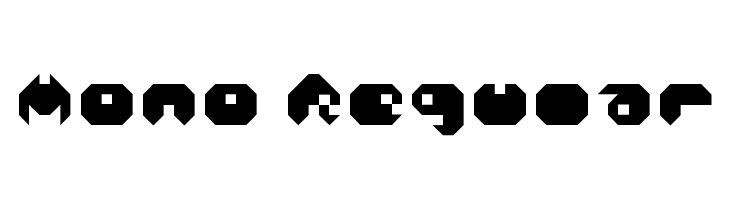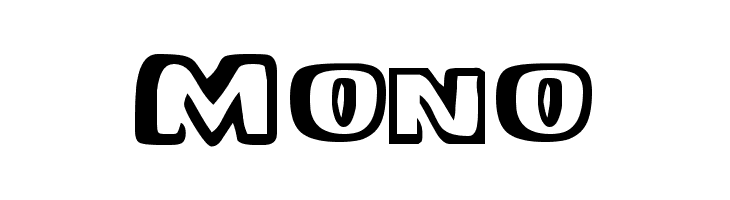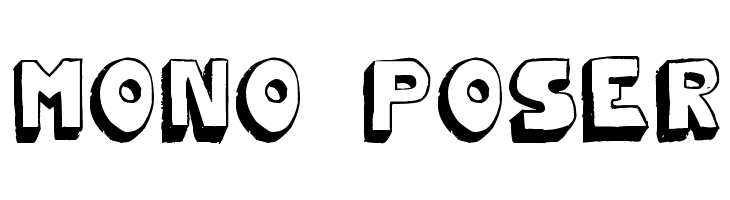
( Fonts by Des Gomez )
A playful, hand-drawn font with a whimsical and energetic style.
A bold, modern sans-serif font with clean lines and rounded edges.
( Font by Jayvee D. Enaguas - grandchaos9000.deviantart.com )
A bold, modern font with geometric lines and consistent stroke width.
( Fonts by Manfred Klein - manfred-klein.ina-mar.com )
A bold, Gothic-style font with intricate, angular designs.
( Fonts by Anke Arnold - www.anke-art.de )
A bold, intricate blackletter font with dramatic strokes and historical flair.
( Fonts by Achmad Yani )
A playful, bold font with rounded, bubble-like characters.
( AgaSilva - agasilva.com )
An elegant script font with flowing lines and intricate swashes.
A playful, bold font with rounded, hand-drawn characteristics.
A sophisticated script font with flowing, interconnected letters and a handwritten feel.